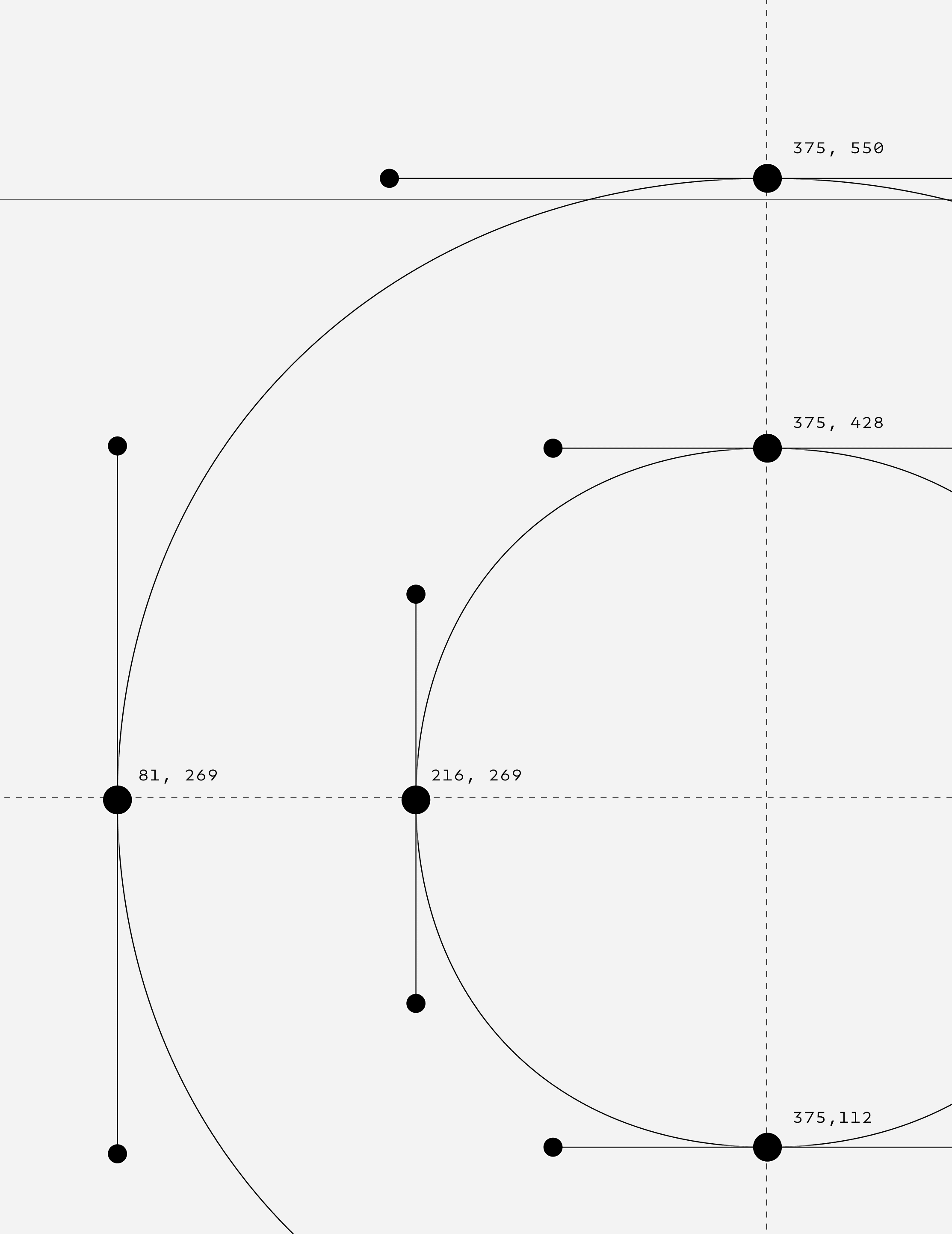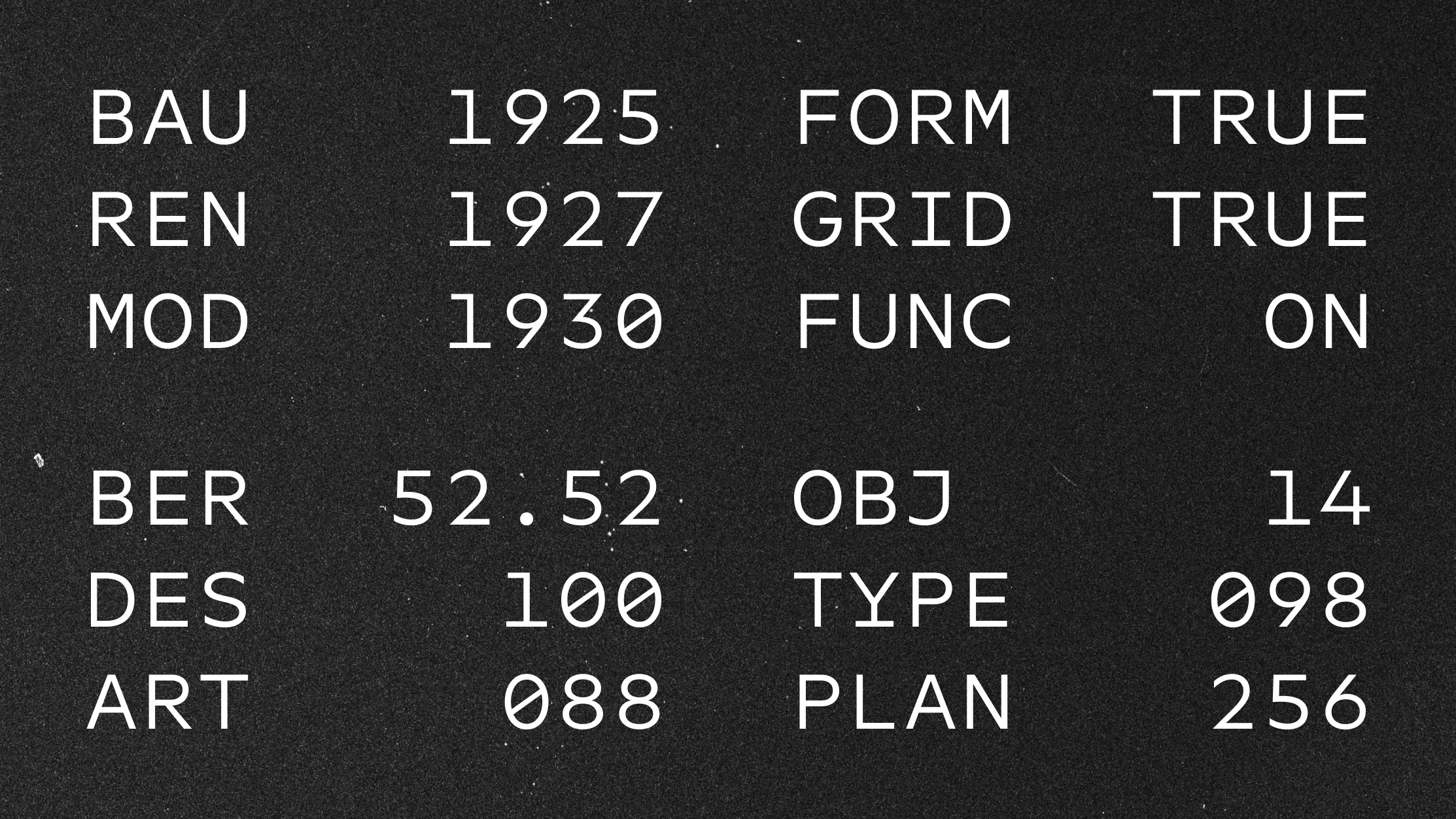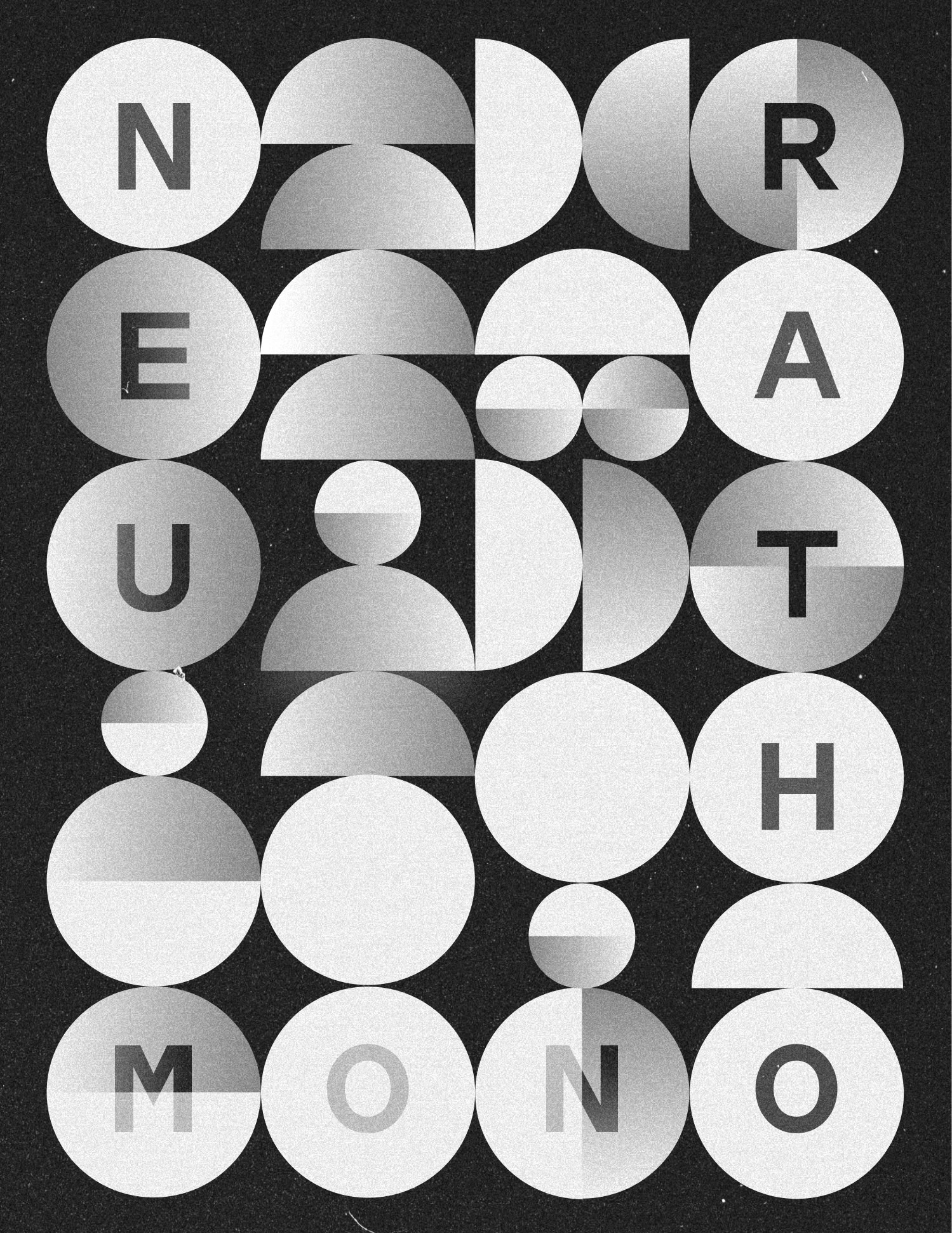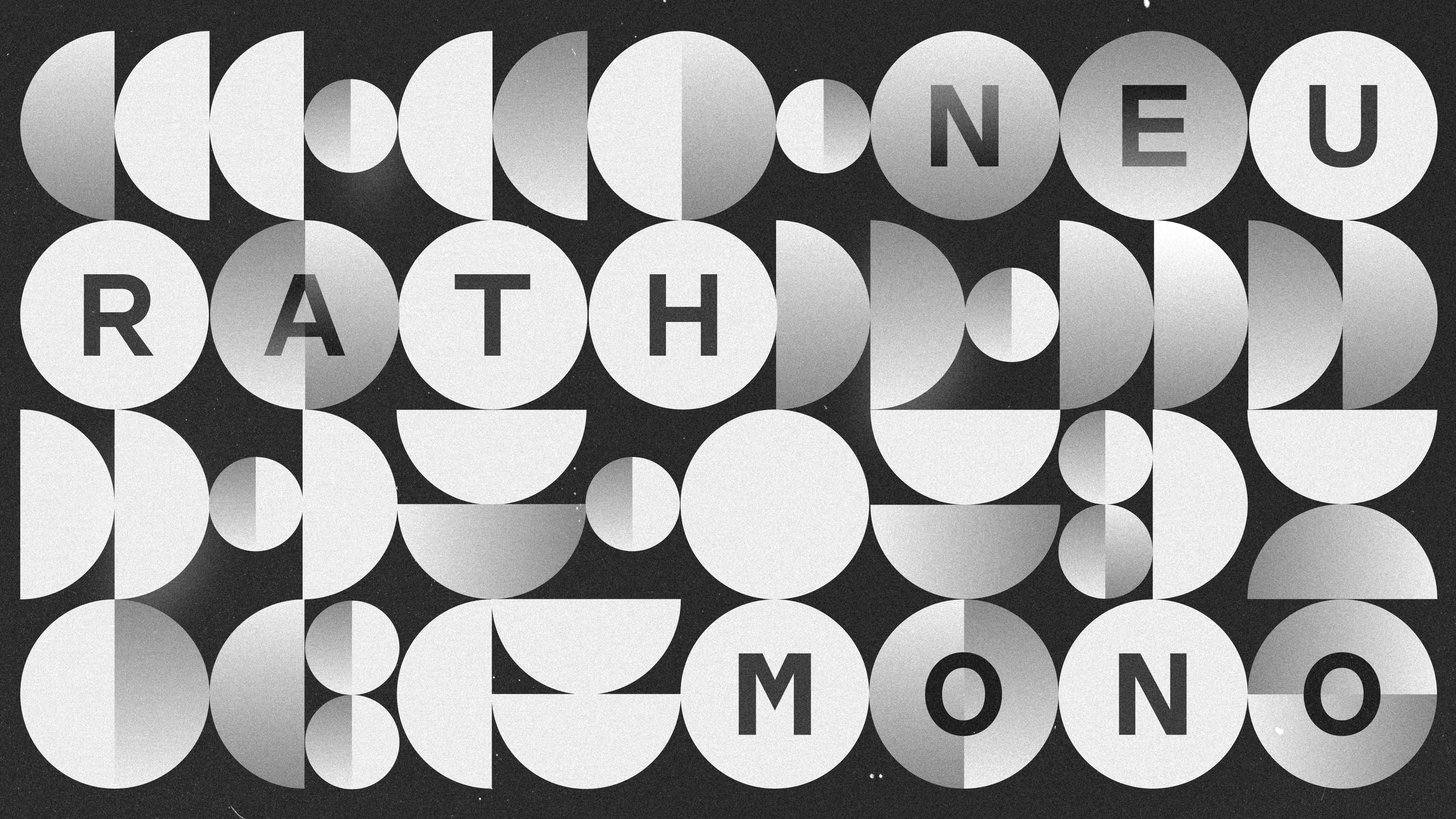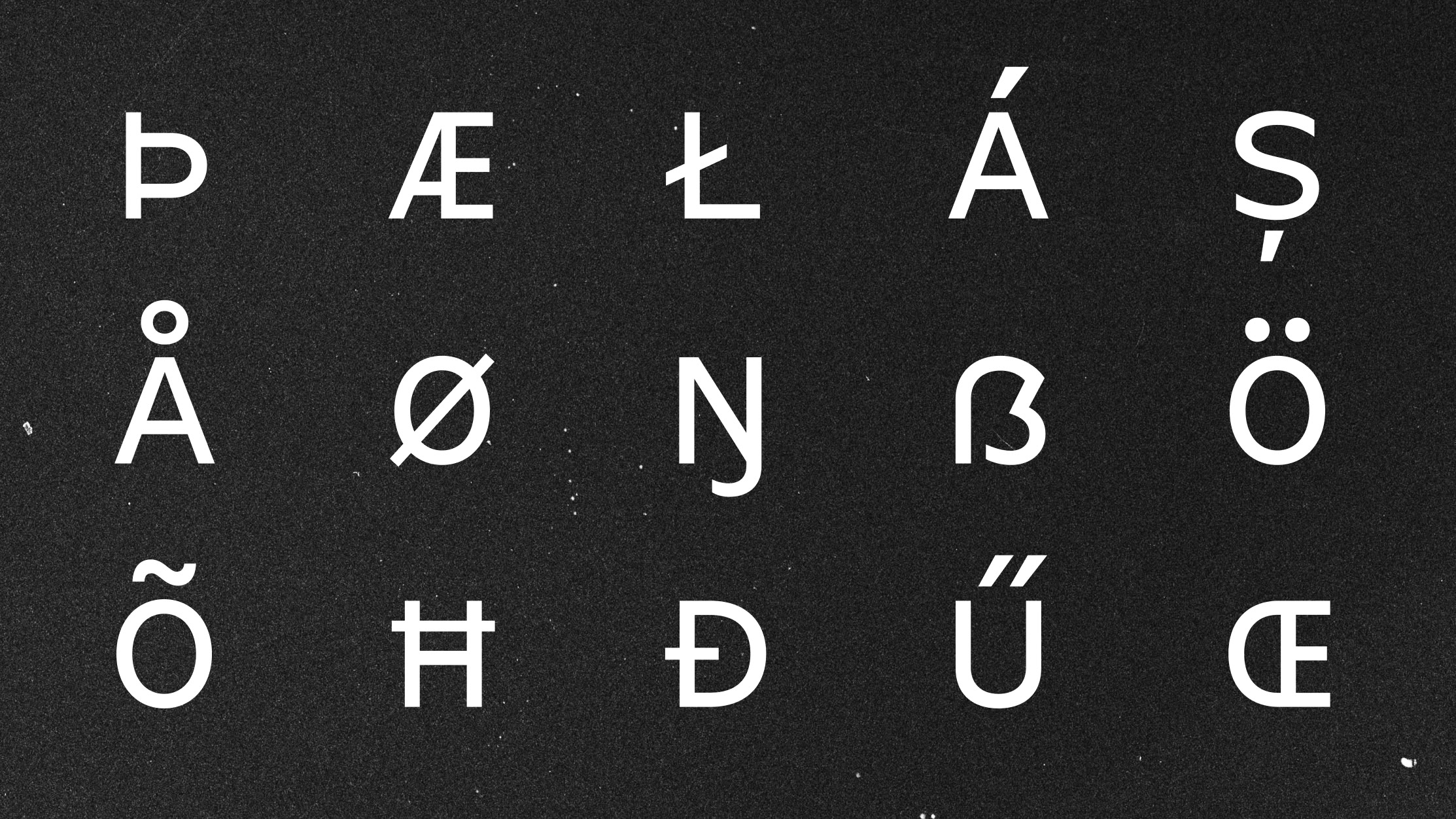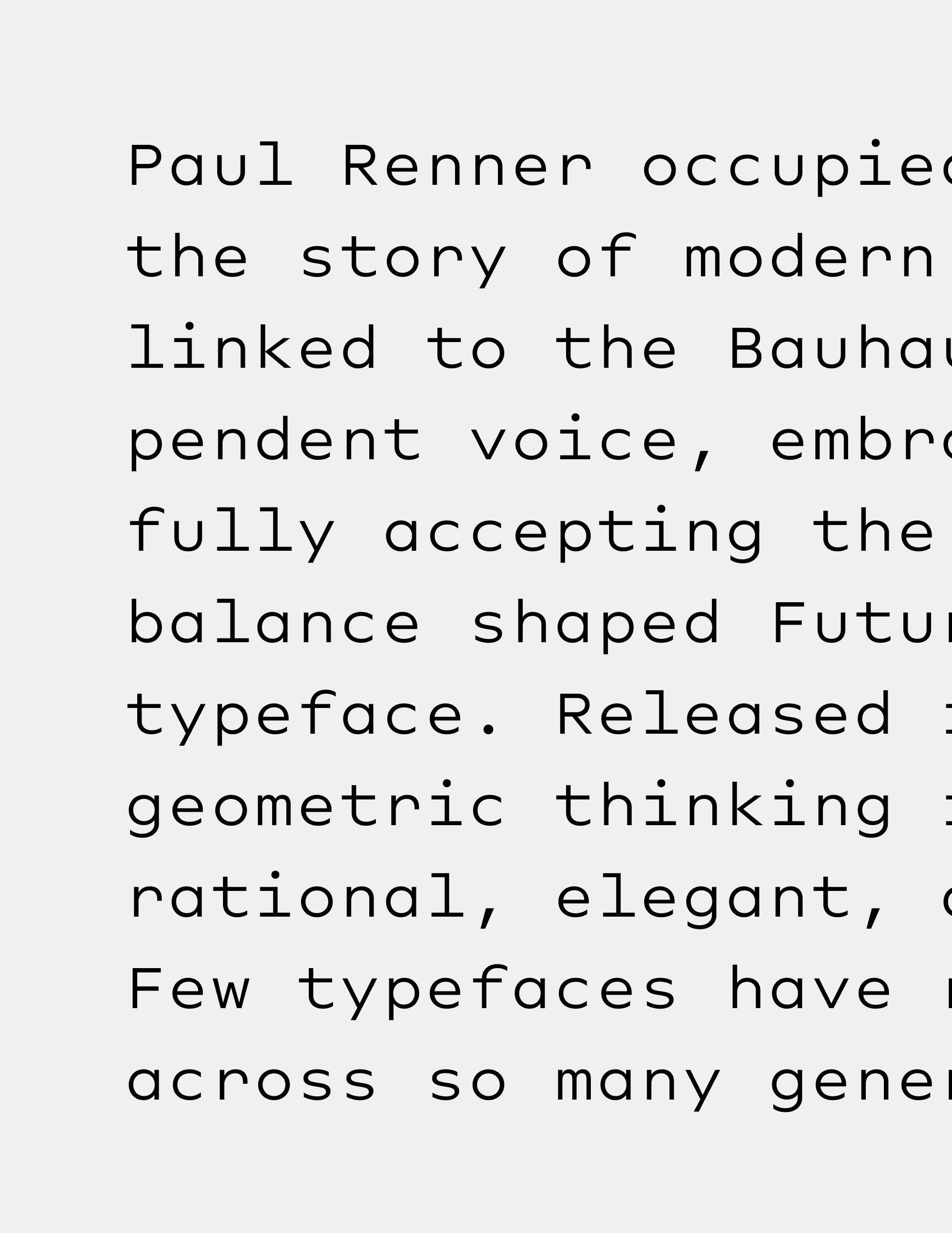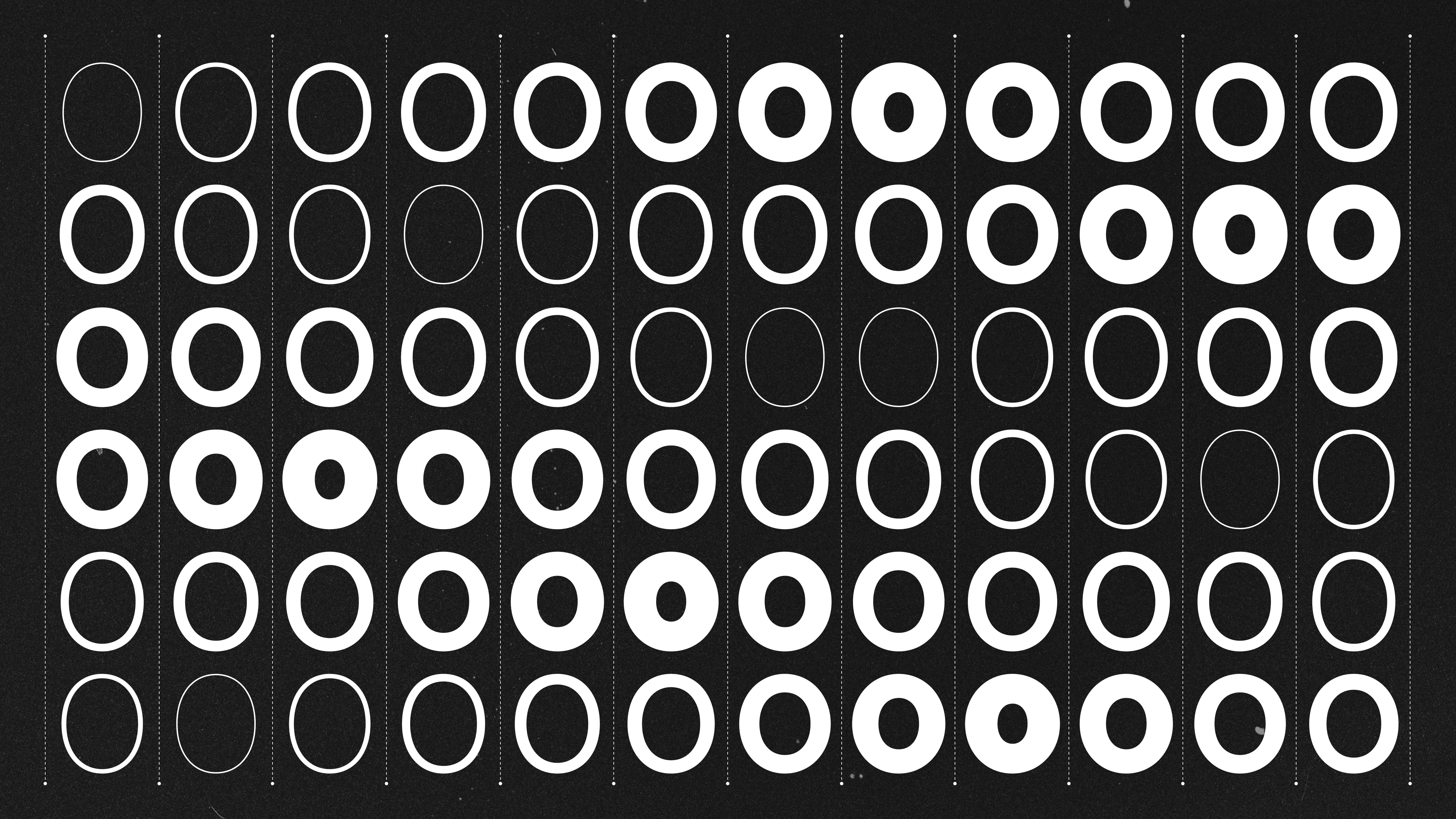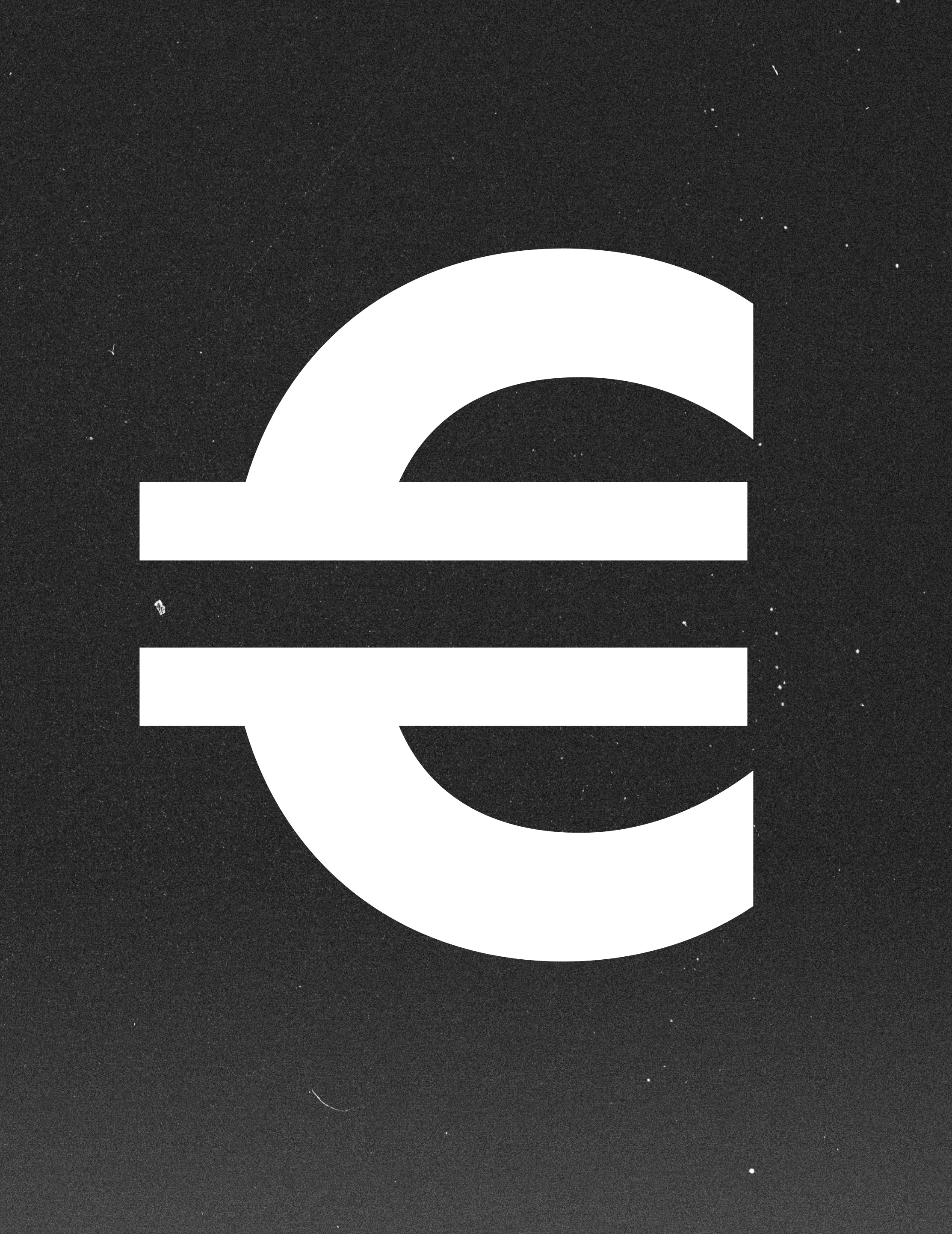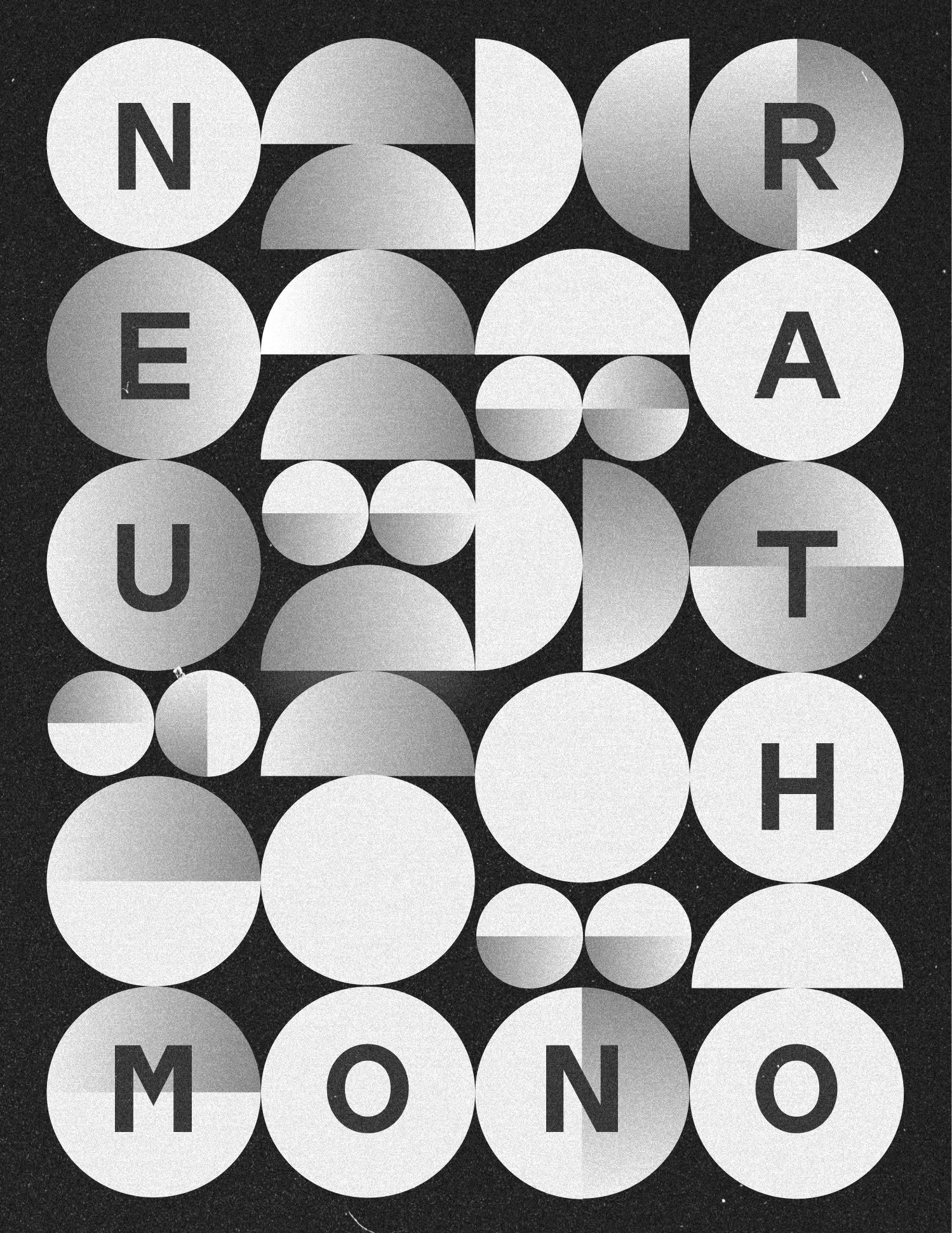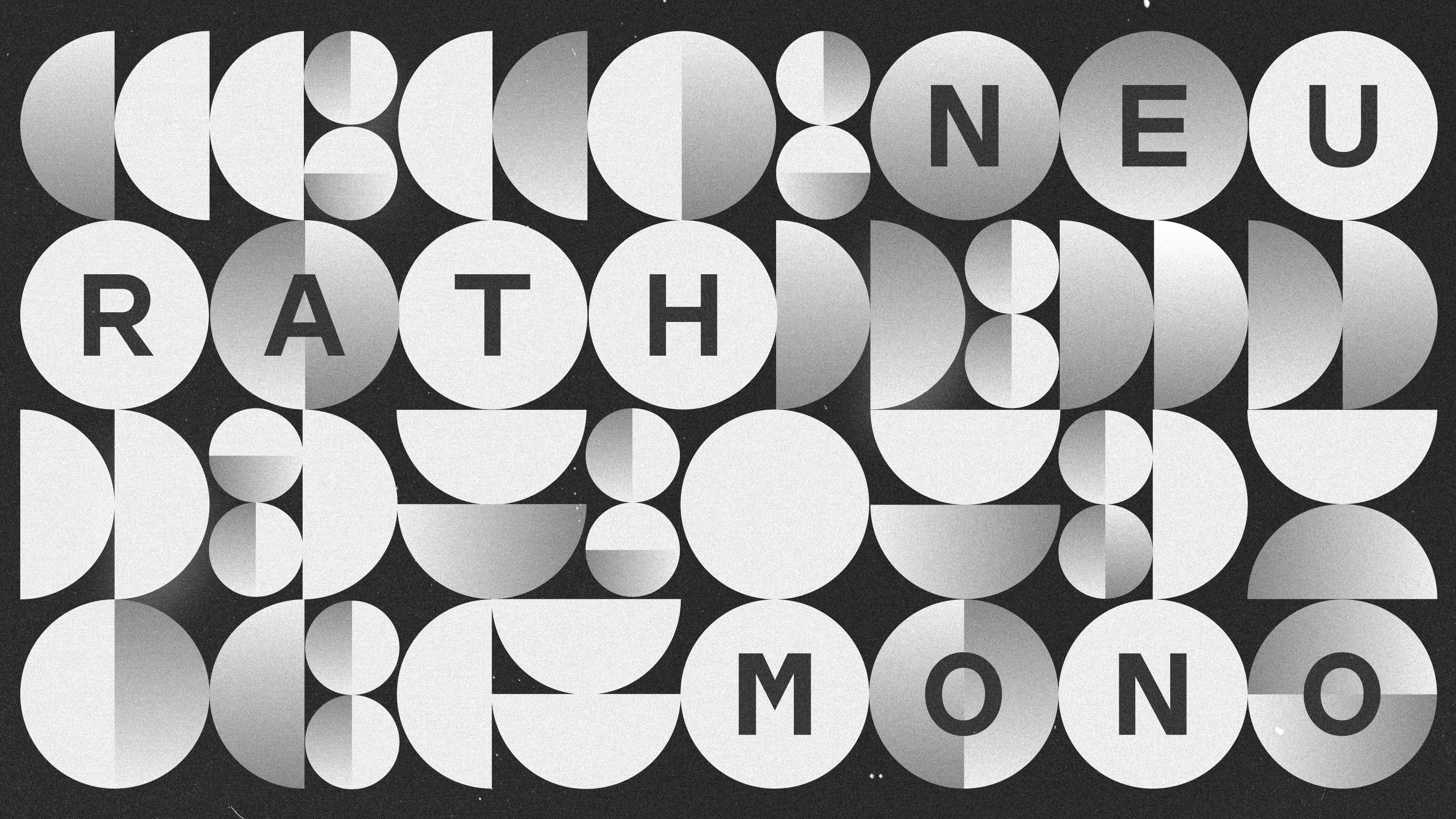
Neurath Mono brings open geometry and balanced proportions to a contemporary monospaced system. Together with Neurath, Neurath X, and Neurath X Mono, it forms a versatile collection for editorial, branding, coding, and digital applications.